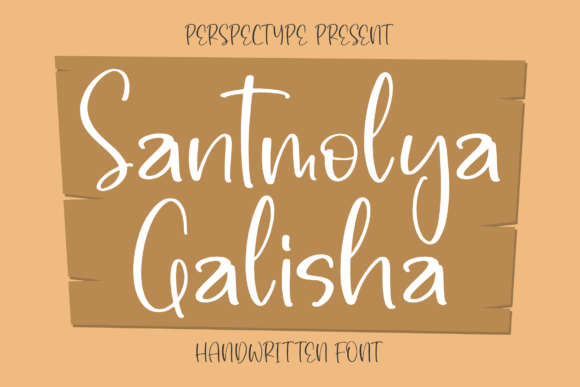
Journey into the realm of elegance and sophistication with Santmolya Galisha, a mesmerizing script font that will transform your creative visions into masterpieces. Experience the allure of handwritten beauty that adds a personal touch to your designs, capturing the essence of heartfelt artistry.
With Santmolya Galisha, every stroke of your imagination dances across the canvas, leaving a trail of captivating charm. Its enchanting curves and delicate flourishes evoke a sense of timeless romance, inviting you to weave tales of love, joy, and endless possibilities.
As you unleash your creativity with Santmolya Galisha, envision your words taking flight like graceful birds, carrying messages of love, inspiration, and dreams yet to be fulfilled. Whether you're designing logos that exude elegance, branding projects that resonate with authenticity, or posters that speak to the soul, Santmolya Galisha is your trusted companion, guiding you along the path of creative excellence.
Picture the warmth of Santmolya Galisha gracing your homeware designs, adding a touch of cozy charm to mugs, posters, and shopping bags. Its versatility extends to t-shirts, book covers, and invitation cards, where every letter becomes an exquisite ornament, inviting smiles and admiration wherever it goes.
Immerse yourself in the magic of Santmolya Galisha, and discover the limitless possibilities that await. From photography projects that capture life's fleeting moments to watermarks that leave an indelible mark of beauty, every creation becomes a canvas for your artistry to shine.